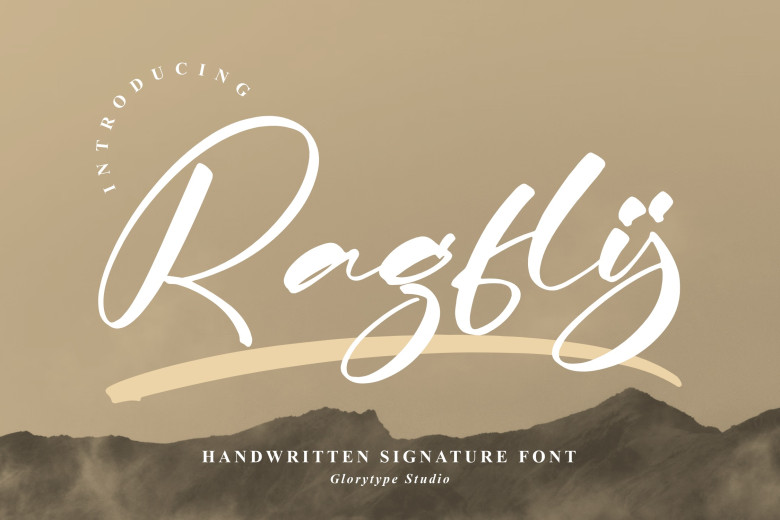
Ragflij Font
Ragflij is a one-of-a-kind and opulent handwritten font. It appears stunning on various designs meant to be created in handcrafted designs, including custom greeting cards; wedding solicitations; thanks notes; business logos, and other.
Ragflij Handwritten Font